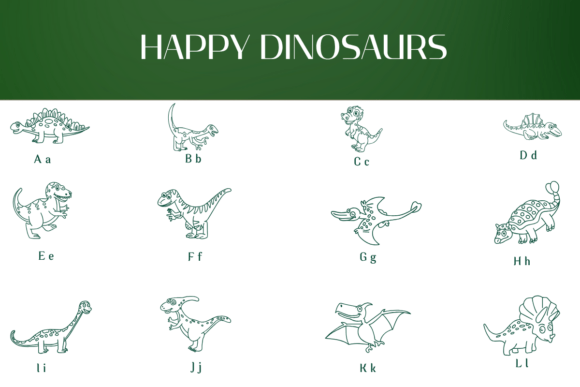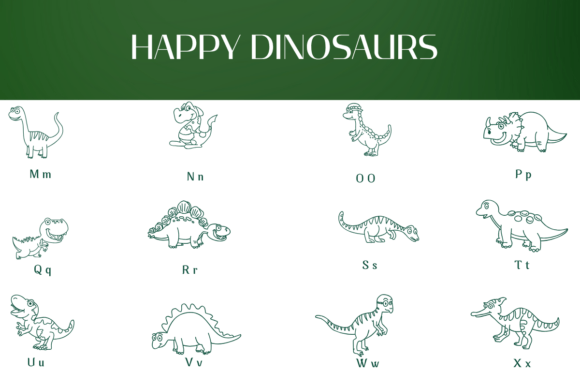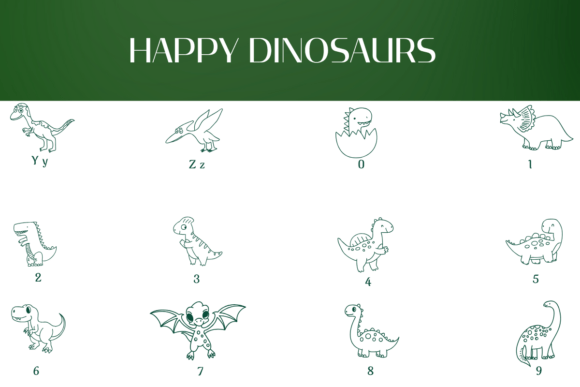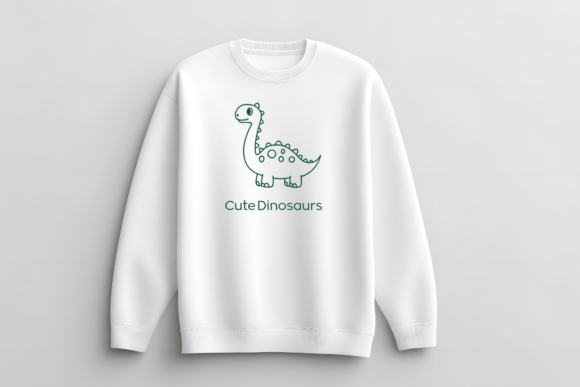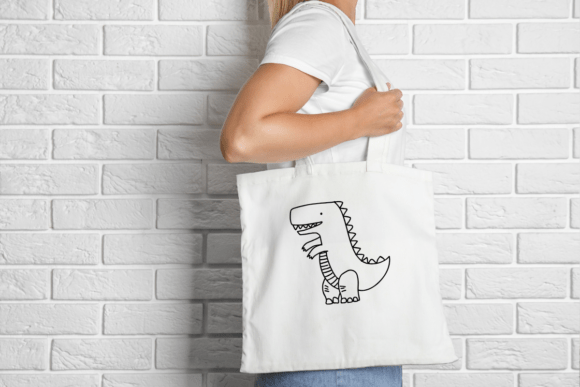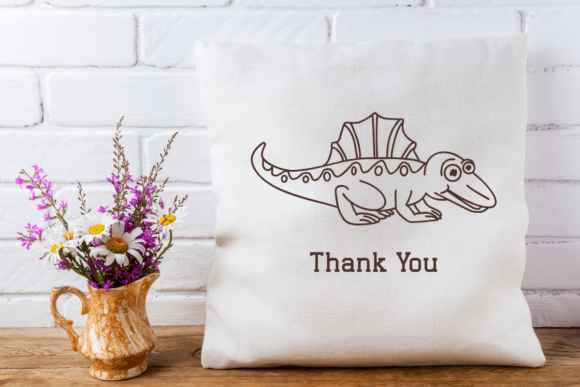
Discover the Joy of Happy Dinosaurs Font: A Dingbats Delight for Designers and Crafters
Are you ready to add a touch of whimsy and fun to your designs? Look no further than the Happy Dinosaurs Font, a delightful dingbats font that’s perfect for a variety of creative projects. In this article, we’ll explore the features and uses of Happy Dinosaurs Font, and show you how to make the most of this exciting new font in your designs.
What is Happy Dinosaurs Font?
Happy Dinosaurs Font is a unique dingbats font that features adorable dinosaur illustrations, each one bursting with personality and charm. The font is designed to bring a smile to your face, making it perfect for projects that require a playful and lighthearted touch. With Happy Dinosaurs Font, you can add a fun and quirky element to your designs, making them stand out from the crowd.
Uses for Happy Dinosaurs Font
So, what can you use Happy Dinosaurs Font for? The possibilities are endless! Here are just a few ideas to get you started:
- Note-taking and journaling: Add a fun and playful touch to your notes and journal entries with Happy Dinosaurs Font. It’s the perfect way to make your notes more engaging and enjoyable to read.
- Greeting cards and invitations: Create one-of-a-kind greeting cards and invitations that are sure to delight the recipient. Happy Dinosaurs Font is perfect for birthdays, holidays, and special occasions.
- Banners and signs: Use Happy Dinosaurs Font to create eye-catching banners and signs that are sure to grab attention. Perfect for parties, events, and displays.
- Social media posts: Add a touch of whimsy to your social media posts with Happy Dinosaurs Font. It’s a great way to make your posts more engaging and shareable.
- Mugs, shirts, and other merchandise: Use Happy Dinosaurs Font to create fun and quirky designs for mugs, shirts, and other merchandise. Perfect for gifts or personal use.
Design Possibilities with Happy Dinosaurs Font
With Happy Dinosaurs Font, the design possibilities are endless! Here are a few ideas to get you started:
- Create a dinosaur-themed party invitation: Use Happy Dinosaurs Font to create a fun and playful party invitation that’s sure to delight kids and adults alike.
- Design a custom journal or planner: Add a touch of whimsy to your journal or planner with Happy Dinosaurs Font. It’s the perfect way to make your notes and plans more enjoyable to read.
- Make a set of dinosaur-themed greeting cards: Use Happy Dinosaurs Font to create a set of unique and playful greeting cards that are sure to bring a smile to the recipient’s face.
Tips for Using Happy Dinosaurs Font
Here are a few tips for using Happy Dinosaurs Font in your designs:
- Experiment with different colors and combinations: Don’t be afraid to try out different colors and combinations with Happy Dinosaurs Font. The font looks great in a variety of colors and can be paired with other fonts for added interest.
- Use it sparingly: While Happy Dinosaurs Font is fun and playful, it’s best to use it sparingly to avoid overwhelming the design. Use it to add a touch of whimsy or to highlight important information.
- Pair it with other fonts: Happy Dinosaurs Font pairs well with other fonts, so don’t be afraid to experiment with different combinations. Try pairing it with a bold font for added contrast or with a script font for a more elegant look.
In conclusion, Happy Dinosaurs Font is a fun and playful dingbats font that’s perfect for designers and crafters looking to add a touch of whimsy to their projects. With its adorable dinosaur illustrations and endless design possibilities, Happy Dinosaurs Font is sure to delight kids and adults alike. So why not give it a try and see what amazing designs you can create?